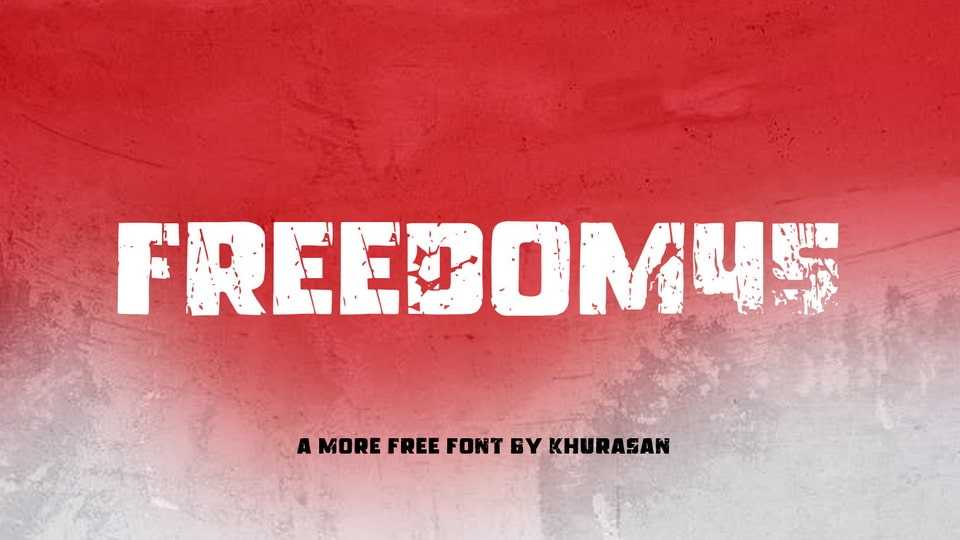
Download Freedom45 font, a fearless and bold display typeface that brings a rugged edge to your designs. Freedom45 font is designed to make a powerful statement, exuding a sense of rebellion and raw energy.